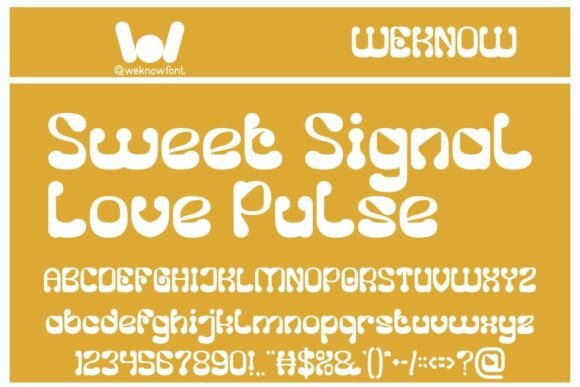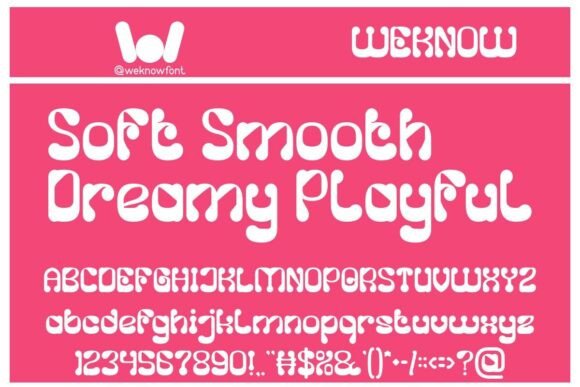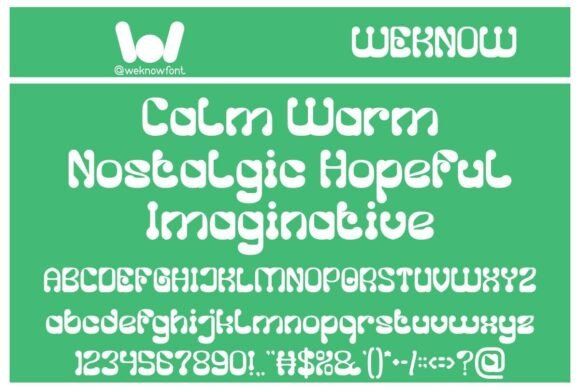
Introduction to Pleasant Dream Font
Have you ever stared at a blank canvas, waiting for the perfect font to bring your creative vision to life? As designers, we’ve all been there – the excitement of a new project, the pressure to deliver something unique, and the struggle to find the perfect design resource. That’s where Pleasant Dream Font comes in – a game-changing, high-quality font that’s about to revolutionize your creative project.
With its bold, geometrical design and soft corners, Pleasant Dream Font is perfect for striking headlines, logos, and logotypes that demand attention. Whether you’re working on a corporate identity, a music album cover, or a social media campaign, this font is sure to leave a lasting impression. And the best part? It’s available for free download, making it an instant favorite among designers looking for a versatile and high-quality design resource.
So why settle for a generic font when you can have a Pleasant Dream Font that speaks volumes about your creative prowess? Dive into the world of Pleasant Dream and discover a new level of design excellence that will elevate your projects to new heights.
Key Features of Pleasant Dream Font
- High-quality design with a transparent background, perfect for creative projects and designs.
- Available in multiple font sizes, with scalable resolution up to 300 DPI, suitable for various design applications.
- Unique, dreamy aesthetic with subtle texture, making it ideal for creative projects that require a touch of whimsy.
- Supports a wide range of languages, including Latin, Cyrillic, and Greek alphabets.
- Perfect design resource for graphic designers, artists, and writers looking for a high-quality, free font.
Honest Review: Pleasant Dream Font
As a designer, I’m always on the lookout for high-quality fonts that can elevate my creative projects. Recently, I stumbled upon the Pleasant Dream Font, and I’m excited to share my thoughts on it.
- ✨ The transparent background makes it easy to use in various design scenarios.
- ✨ The font is well-designed, with a clean and modern aesthetic that’s perfect for creative projects.
- ⚠️ The font is not as versatile as some other high-quality fonts on the market.
- ⚠️ The character set is limited, which may not be ideal for complex design projects.
Overall, I’d say that the Pleasant Dream Font is a solid design resource that’s perfect for simple creative projects. While it may not be the most comprehensive font, it’s free and easy to use, making it a great option for designers who are just starting out or on a tight budget.
Pleasant Dream Font
The Pleasant Dream Font is a free download that offers a high quality design resource for creative projects. With its transparent background, this font is perfect for designers looking to add a unique touch to their work.
Tips for Getting the Most Out of Pleasant Dream Font
To get the most out of the Pleasant Dream Font, consider the following tips:
1. Experiment with different font sizes and styles to create a unique look.
2. Combine the Pleasant Dream Font with other design elements to create a cohesive design.
3. Use the font in a variety of creative projects, such as social media graphics, posters, and business cards.
Common Use Cases for Pleasant Dream Font
The Pleasant Dream Font is perfect for a variety of creative projects, including:
1. Social media graphics and posts.
2. Posters and flyers.